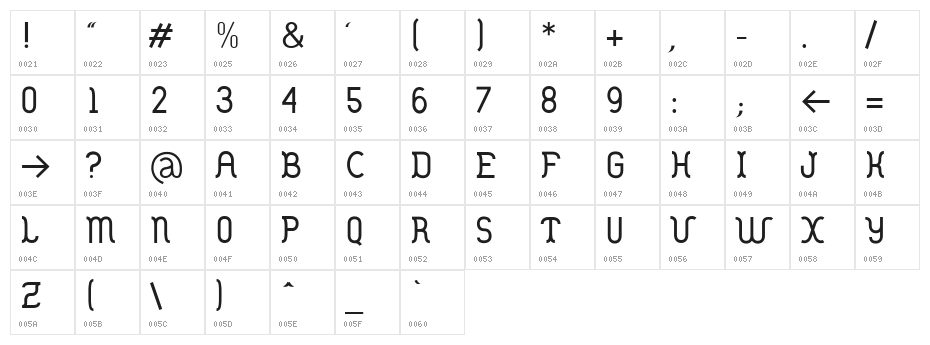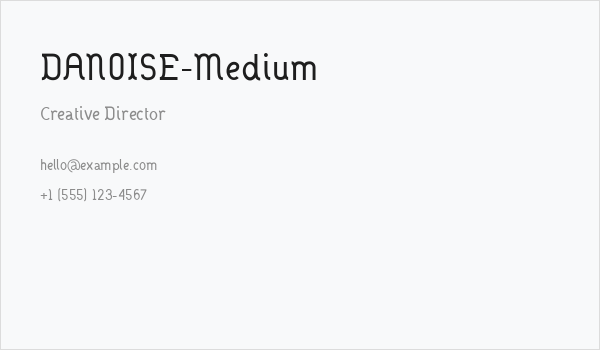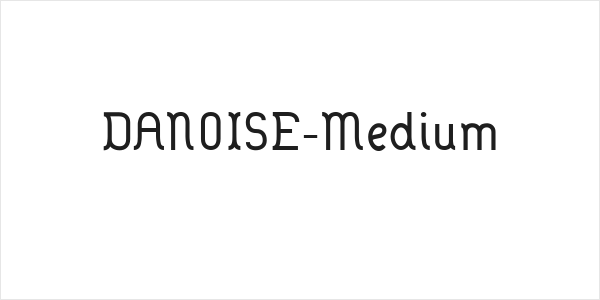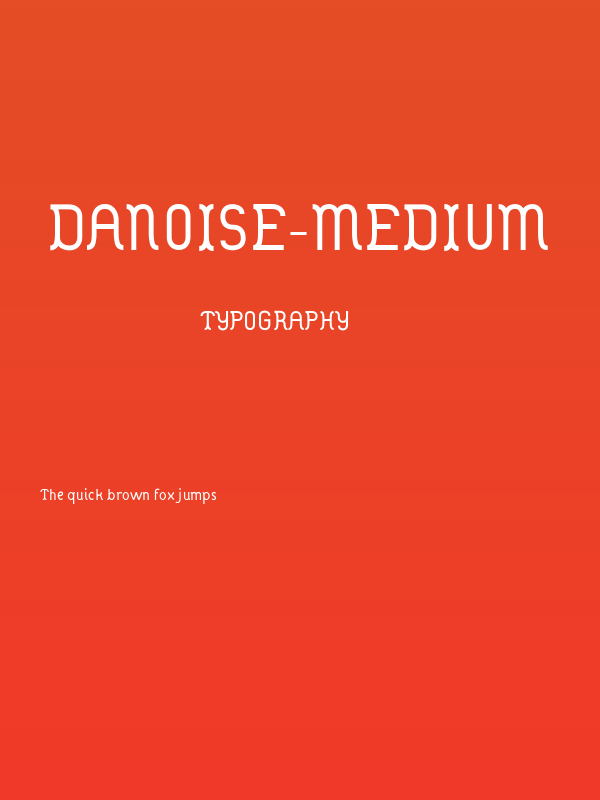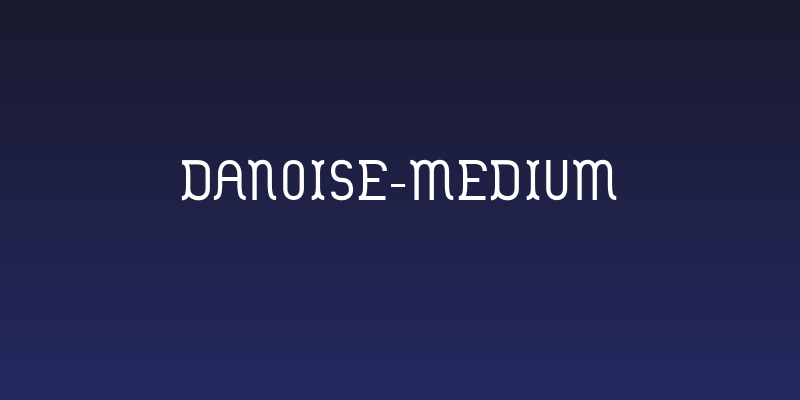
DANOISE-Medium Font
This font features a unique blend of modern and vintage elements, characterized by its rounded edges and slightly condensed letterforms. The uppercase letters exhibit a distinctive style with curved terminals, giving them a playful yet sophisticated look. The lowercase letters maintain a consistent flow, enhancing readability while retaining an artistic flair. Numbers are clear and well-proportioned, making them suitable for various applications. Special characters are thoughtfully designed, ensuring they complement the overall aesthetic. This font's versatility makes it ideal for both digital and print media, offering a fresh take on traditional typefaces.
| Width | Condensed |
| Use Case | Headlines, Body text, Logos |
| Proposed Projects | Ideal for branding, advertising, packaging, and editorial design projects. |